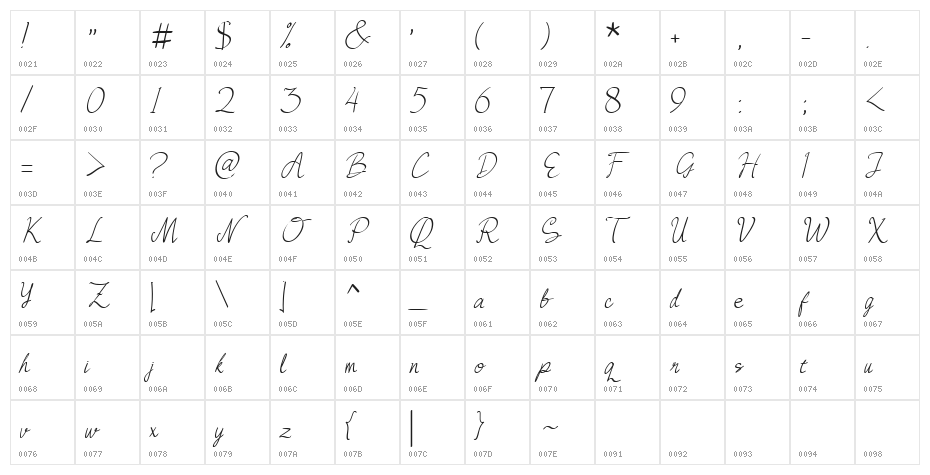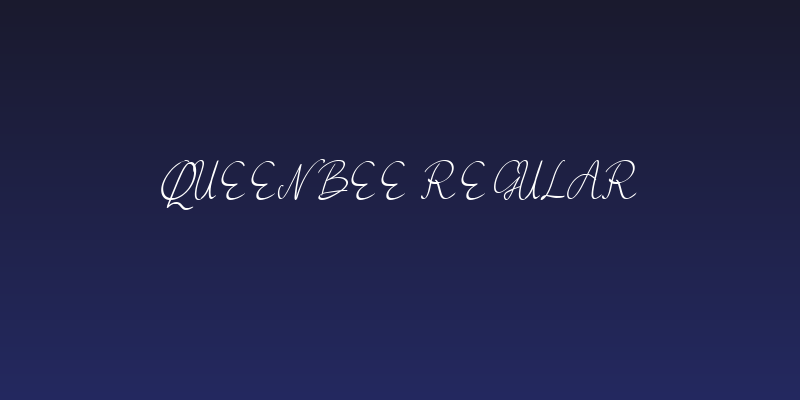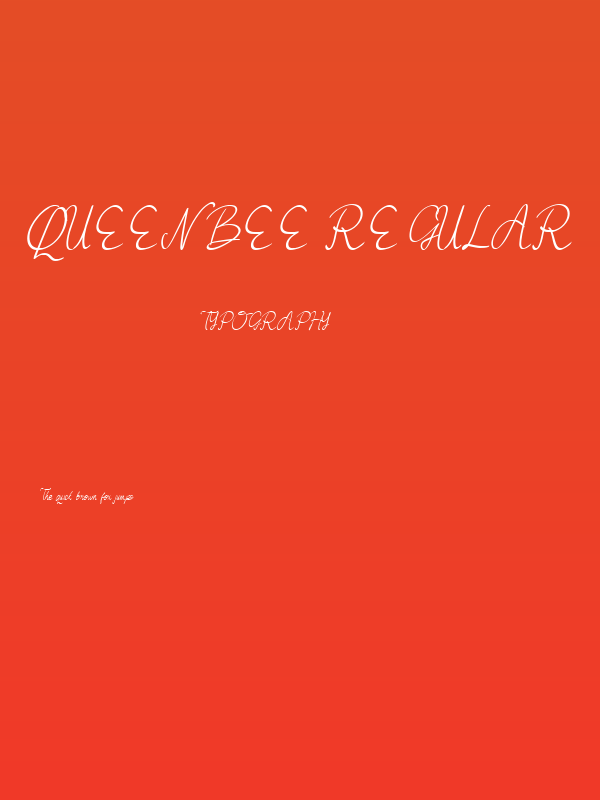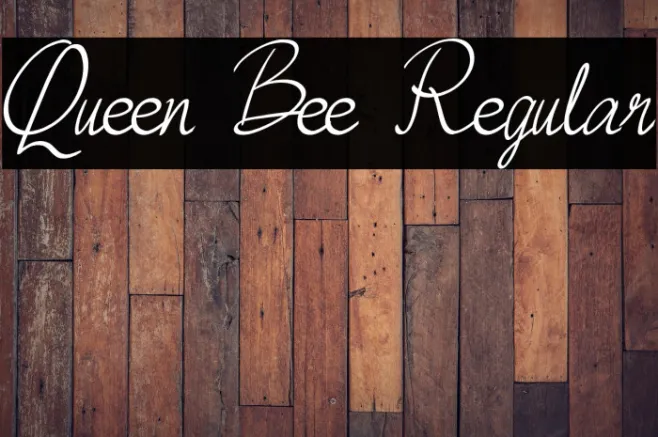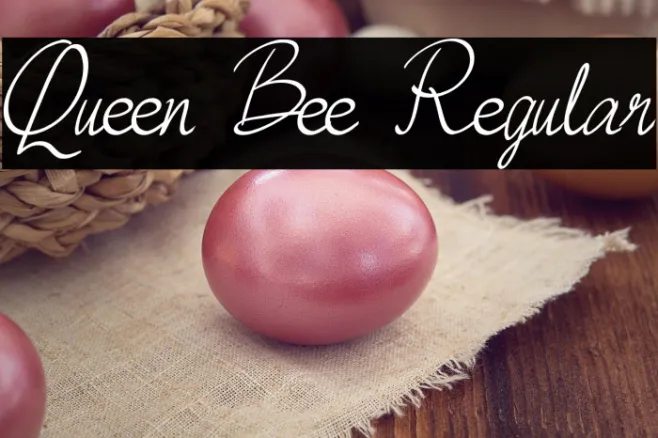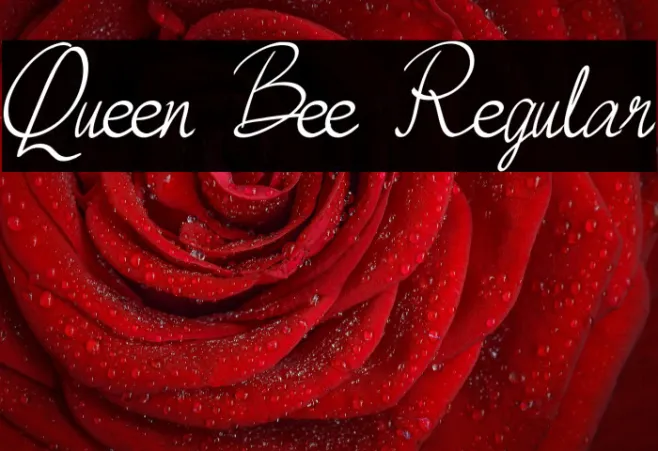
Queen Bee Regular Font
Queen Bee Regular Description
This font features an elegant, flowing script style that mimics the fluidity of cursive handwriting. The characters are interconnected with smooth, sweeping lines, giving it a sophisticated and graceful appearance. The uppercase letters are slightly more embellished, with extended strokes and loops that add a touch of flair. The lowercase letters maintain a consistent flow, enhancing readability while retaining an artistic touch. The numerals and special characters are designed to match the overall script style, ensuring a cohesive look across all text elements. This font exudes a sense of elegance and refinement, making it suitable for formal and decorative applications.
| Use Case | Headlines, Invitations, Branding |
| Proposed Projects | Ideal for wedding invitations, elegant branding, personal stationery, and decorative headings. |